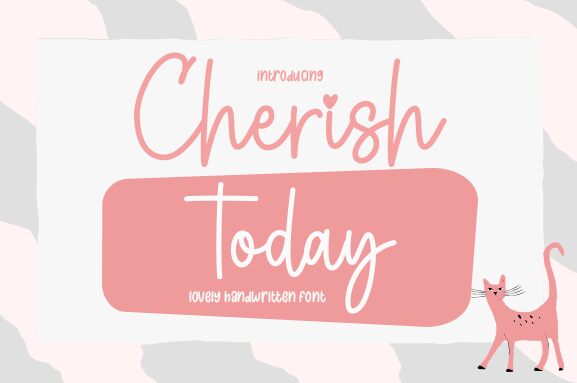
Cherish Today
Cherish Today, a handwritten font designed by Aldi Raya Pradipta, is perfect for adding a personal touch to any project. With its light weight and elegant strokes, it's ideal for wedding invitations, logos, stationery and more.